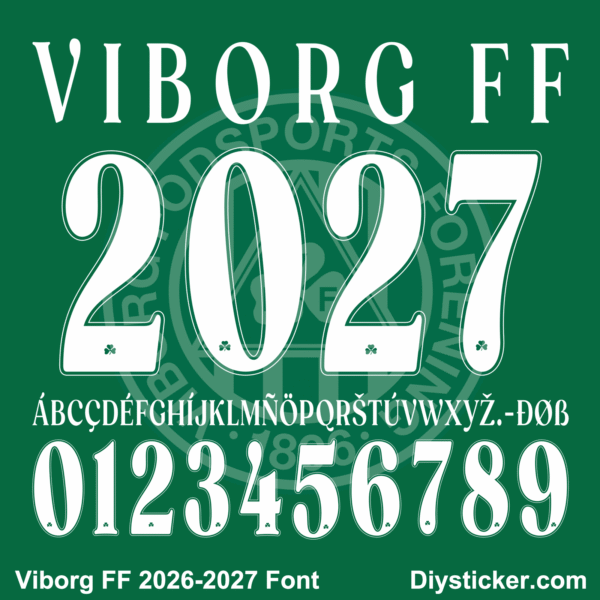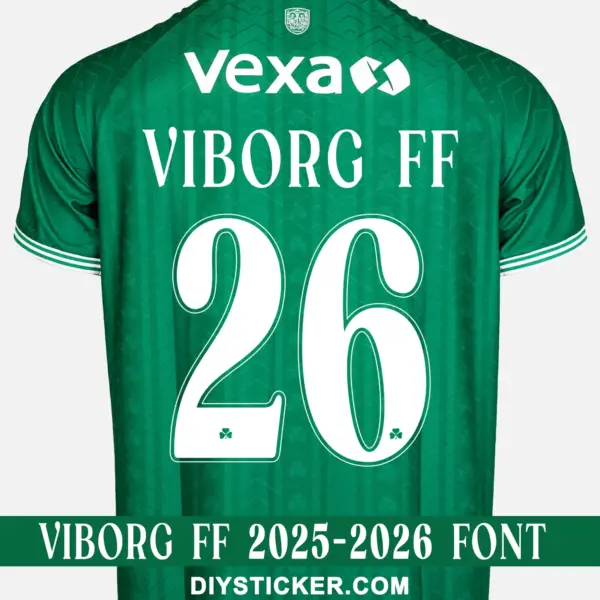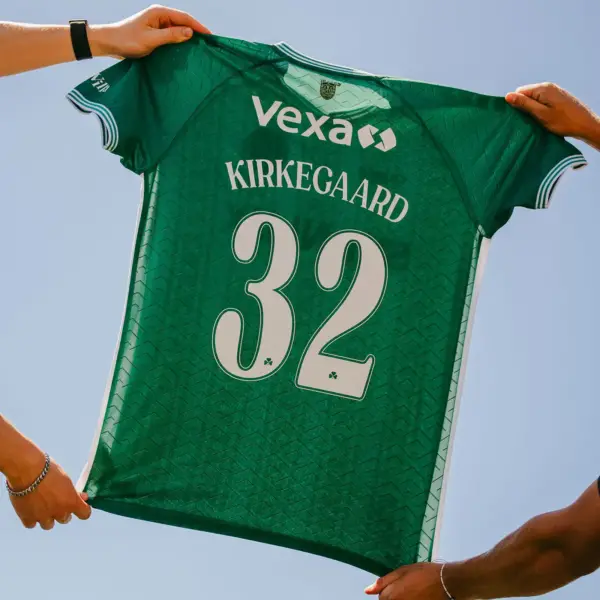
Embrace the historic Danish football heritage of De Grønne with this premium typography asset. This package delivers the official-style Viborg FF 2026-2027 font and custom numeric vector layout, engineered for the upcoming Danish Superliga campaign. Built specifically for independent apparel brands, custom garment printers, and professional vinyl cutting shops, this product features an automated instant digital download link immediately following secure checkout.
Viborg FF 2026-2027 Font & Numbers Vector Kit: Premium Danish Superliga Customization
Upgrade your custom print production with the high-performance Viborg FF 2026-2027 font and complete numbers set. Designed to perfectly replicate the distinctive club look worn on the pitch at the Energi Viborg Arena, this digital toolkit offers unrivaled geometric precision. Whether you are creating an authentic custom name-set for a passionate fan or compiling bold promotional sports signage, our vector files ensure factory-fresh alignment. Discover more iconic European club layouts by exploring our curated repository.
Aesthetic Design Breakdown & Typography Engineering
The Viborg FF 2026-2027 font showcases a highly sophisticated, classical athletic geometry that beautifully balances traditional European sporting elegance with crisp modern performance detailing:
Elegant Serif Character Profile: Moving away from standard block shapes, the alphabet and numbers feature a tall, high-contrast serif structure. The elegant stems and sweeping arches inject a prestigious, historic aesthetic to the back of the shirt.
Iconic Shamrock Baseline Identity: Positioned perfectly within the lower baseline curve of each large digit is a crisp, miniature green shamrock (kløver). This detail anchors the design in Viborg’s iconic civic identity and ensures complete replica authenticity for high-end customization.
Sleek Outlined Edge Detailing: The numbers are surrounded by a perfectly uniform hairline outline trim, separated by a sliver of negative space, adding clear definition and readability even from across the stadium.
High-Contrast Solid White Palette: Engineered specifically to pop with maximum visual impact when rendered in brilliant solid white against the team’s signature dark green textured home jersey.